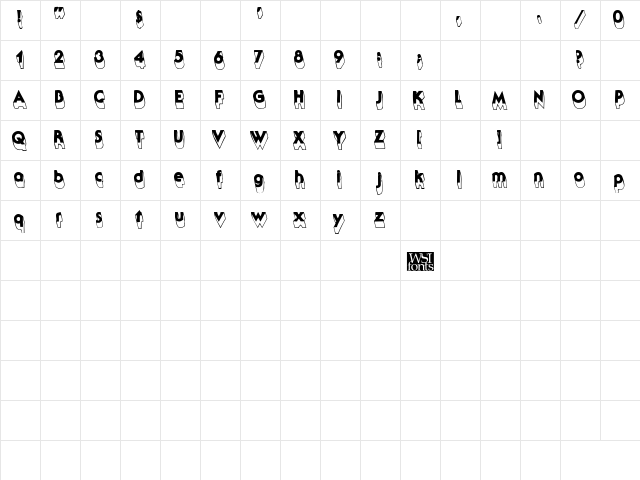
Falkville3D Regular
Design Context for Falkville3D Typeface
Falkville3D is a composed and adaptable typeface that performs quietly and consistently across a wide range of design contexts.